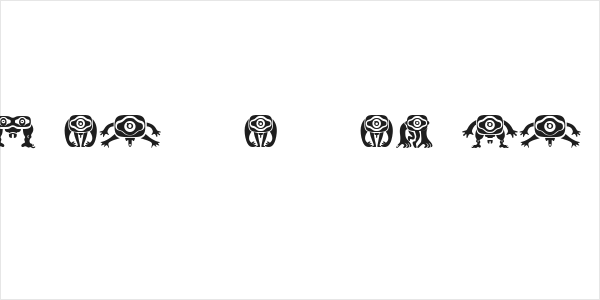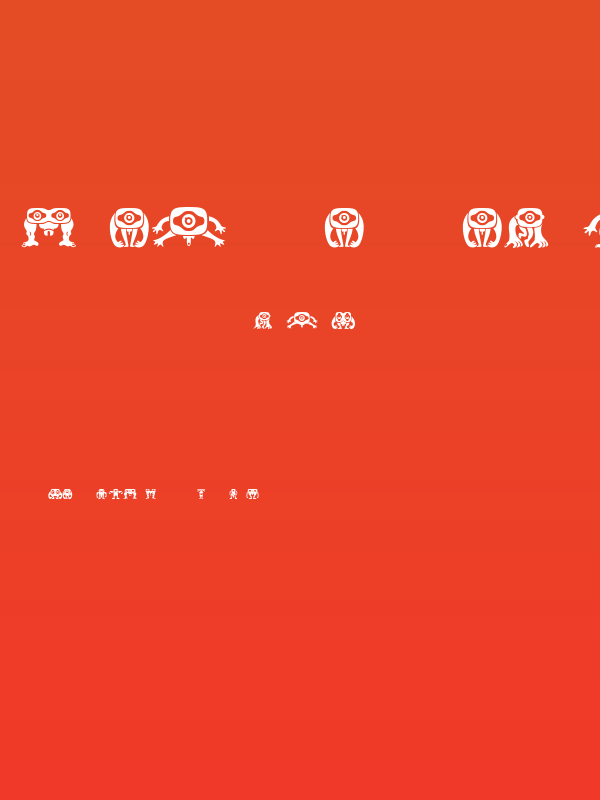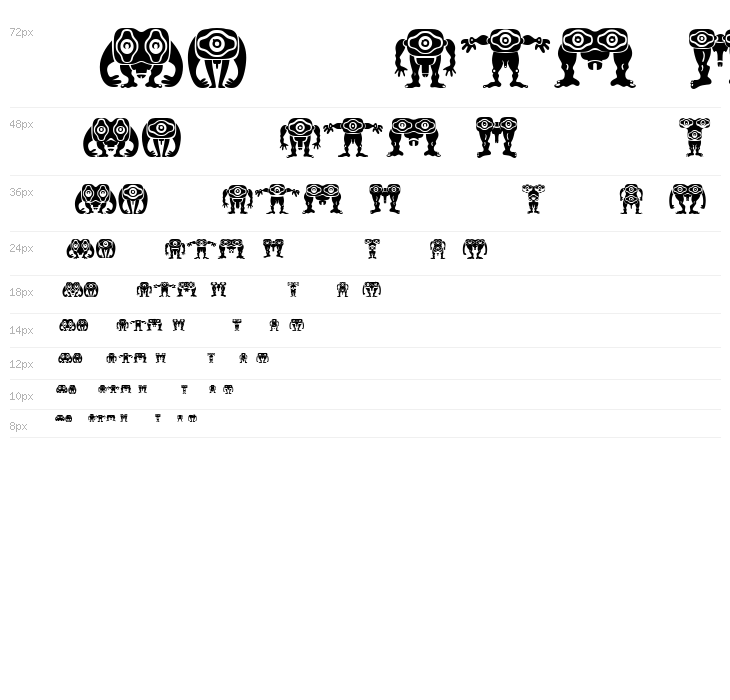
Kreaturen Regular Font
Kreaturen Regular Description
This font is a whimsical and playful collection of characters, each designed to resemble quirky creatures. The characters are highly decorative, with intricate details that give them a unique personality. The style is bold and eye-catching, making it ideal for projects that require a fun and imaginative touch. The font's design is consistent across all characters, maintaining a cohesive look while allowing each letter to stand out with its distinct creature-like appearance.
| Proposed Projects | Ideal for children's books, playful branding, themed party invitations, and creative posters. |